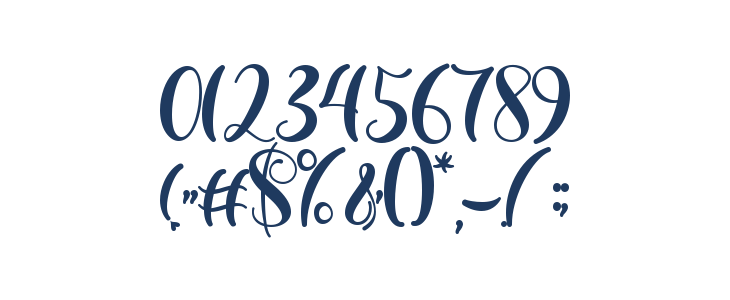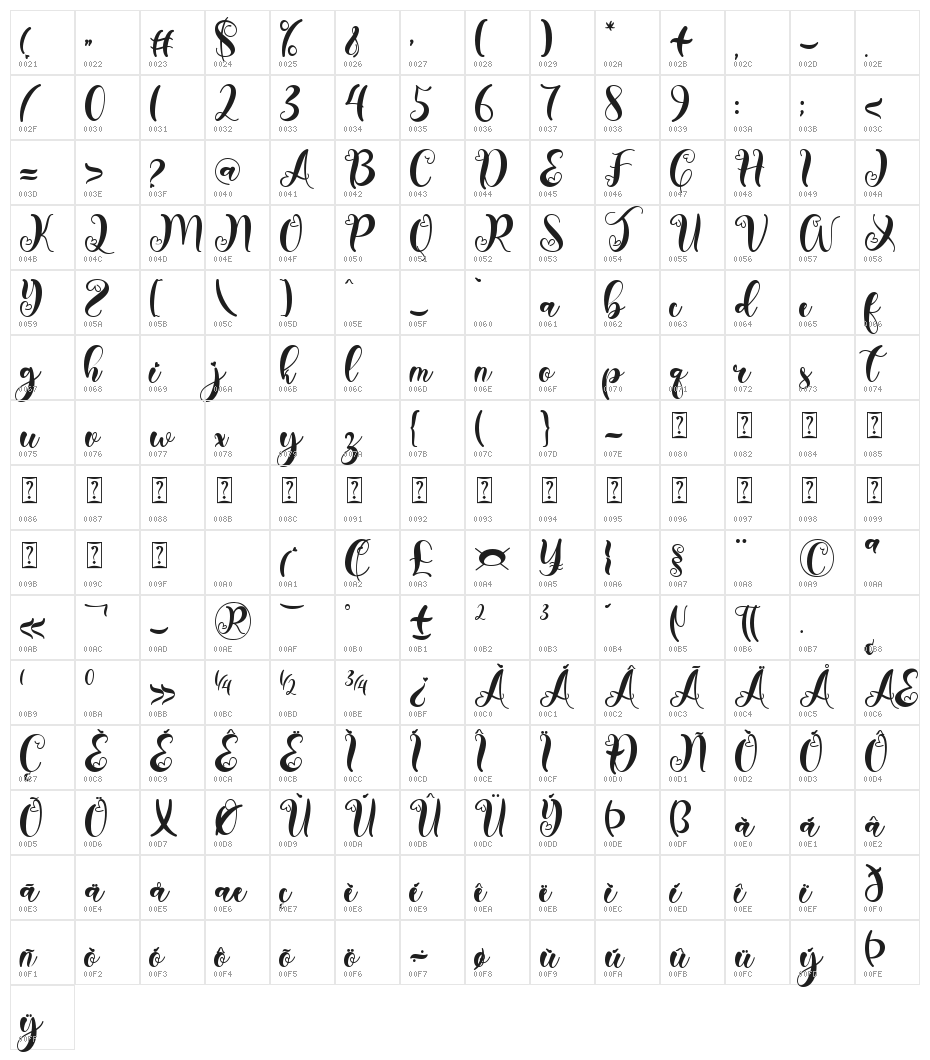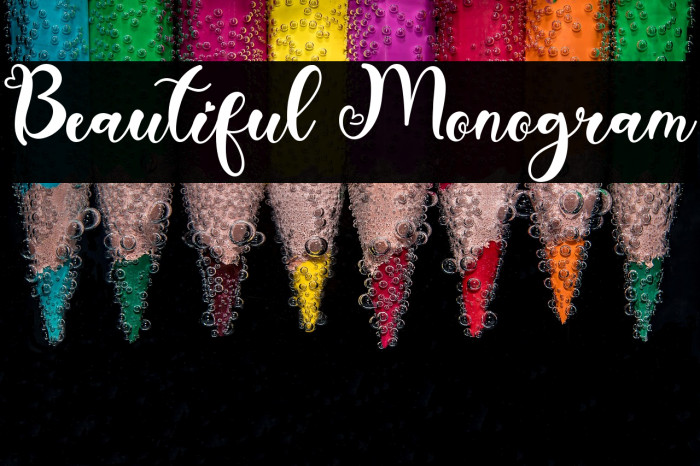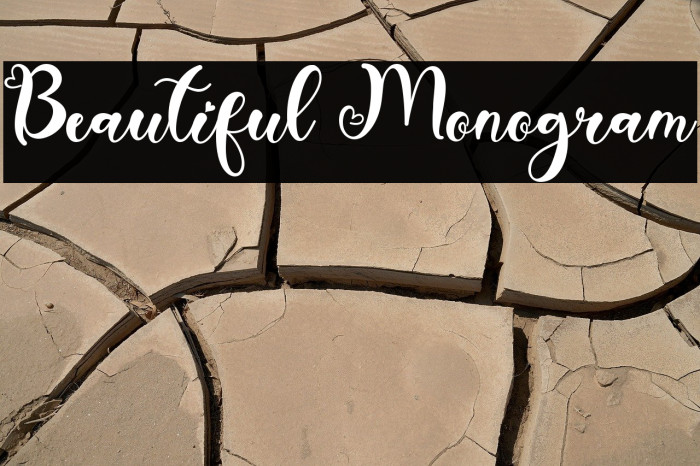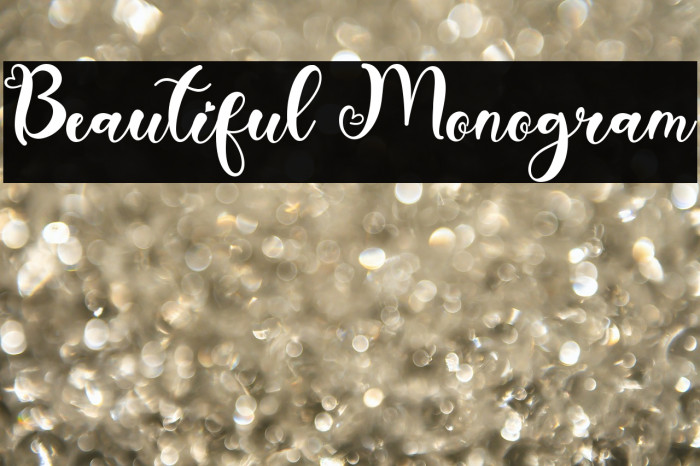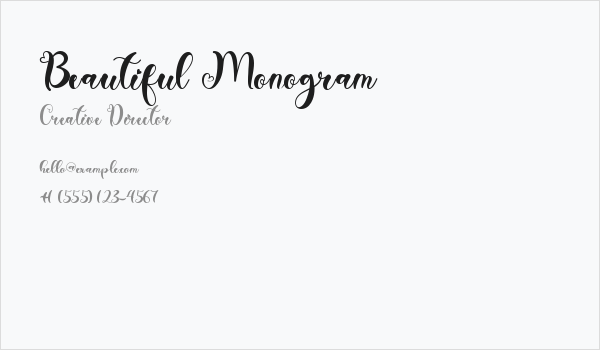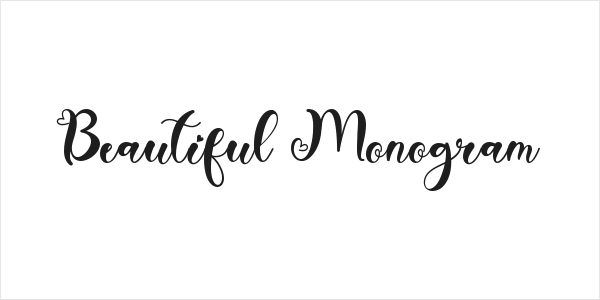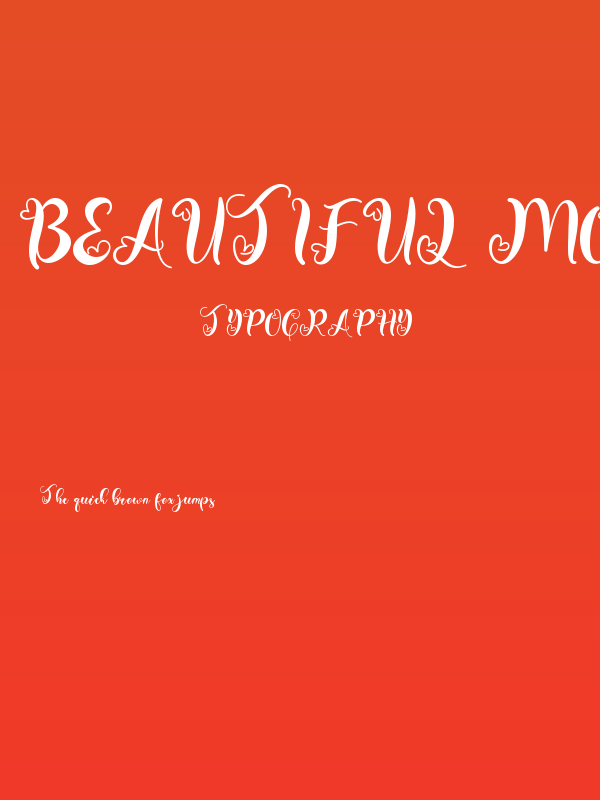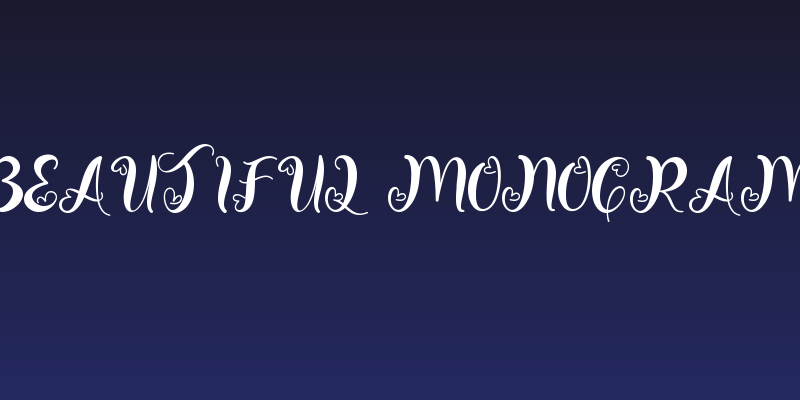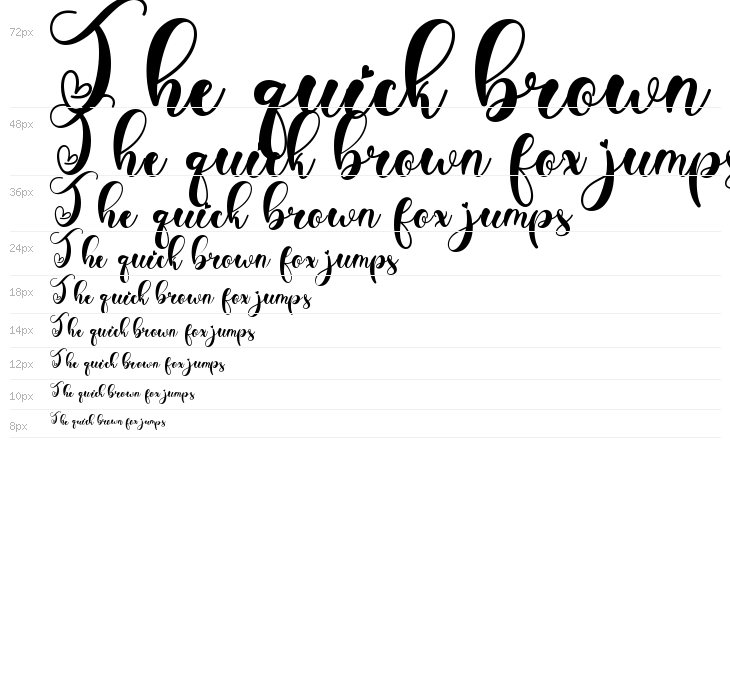
Beautiful Monogram Font
Beautiful Monogram Description
This font features an elegant and decorative script style, characterized by its flowing, interconnected letters and intricate swirls. The uppercase letters are particularly ornate, with flourishes that extend beyond the baseline and cap height, creating a sense of movement and sophistication. The lowercase letters maintain this fluidity, with some characters featuring loops and curls that add to the overall decorative appeal. The numerals are bold and maintain the script style, with unique curves that match the alphabetic characters. Special characters are equally stylized, ensuring consistency across all glyphs. This font is ideal for projects that require a touch of elegance and artistry.
| Use Case | Logos, Invitations, Decorative Text |
| Proposed Projects | Ideal for wedding invitations, luxury branding, personalized stationery, and artistic logos. |